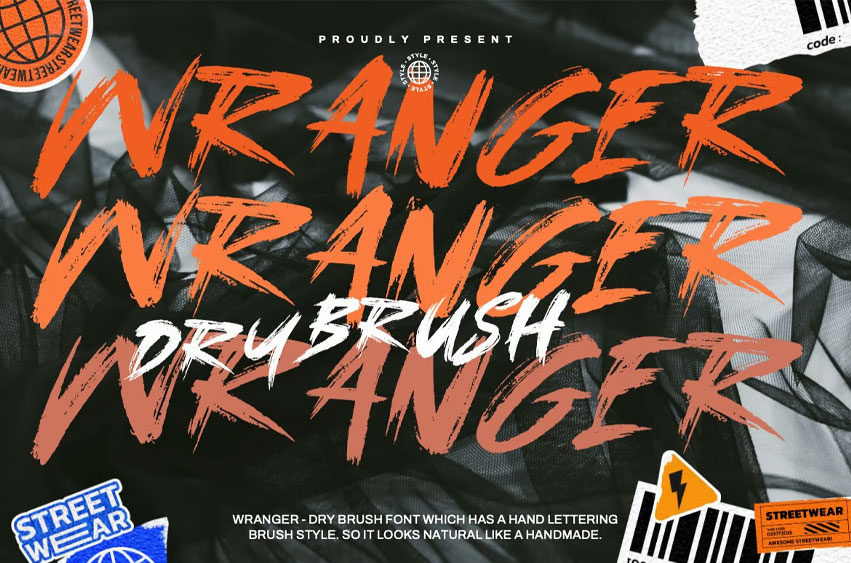
Wranger Font
Wranger Font is a dry brush font that features a hand-lettered style, giving it a natural, handmade appearance. This font offers highly detailed texture, making it an excellent choice for various applications. It is ideal for logos, product branding, and printable templates, as well as text overlays on background images. Additionally, it works well in title designs for apparel, invitations, book titles, stationery, quotes, branding, greeting cards, t-shirts, packaging designs, posters, and more.